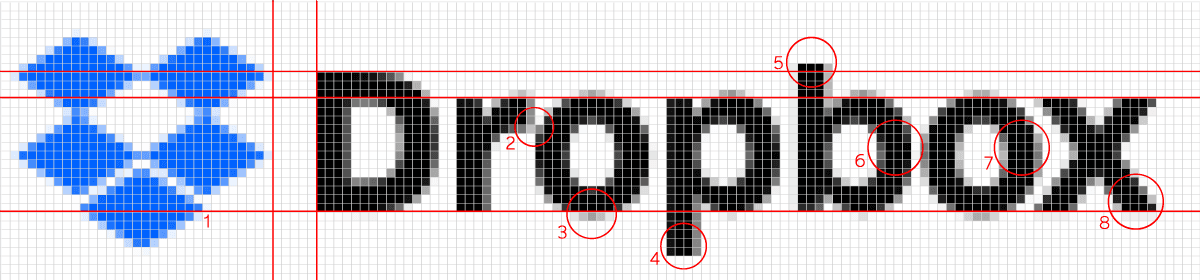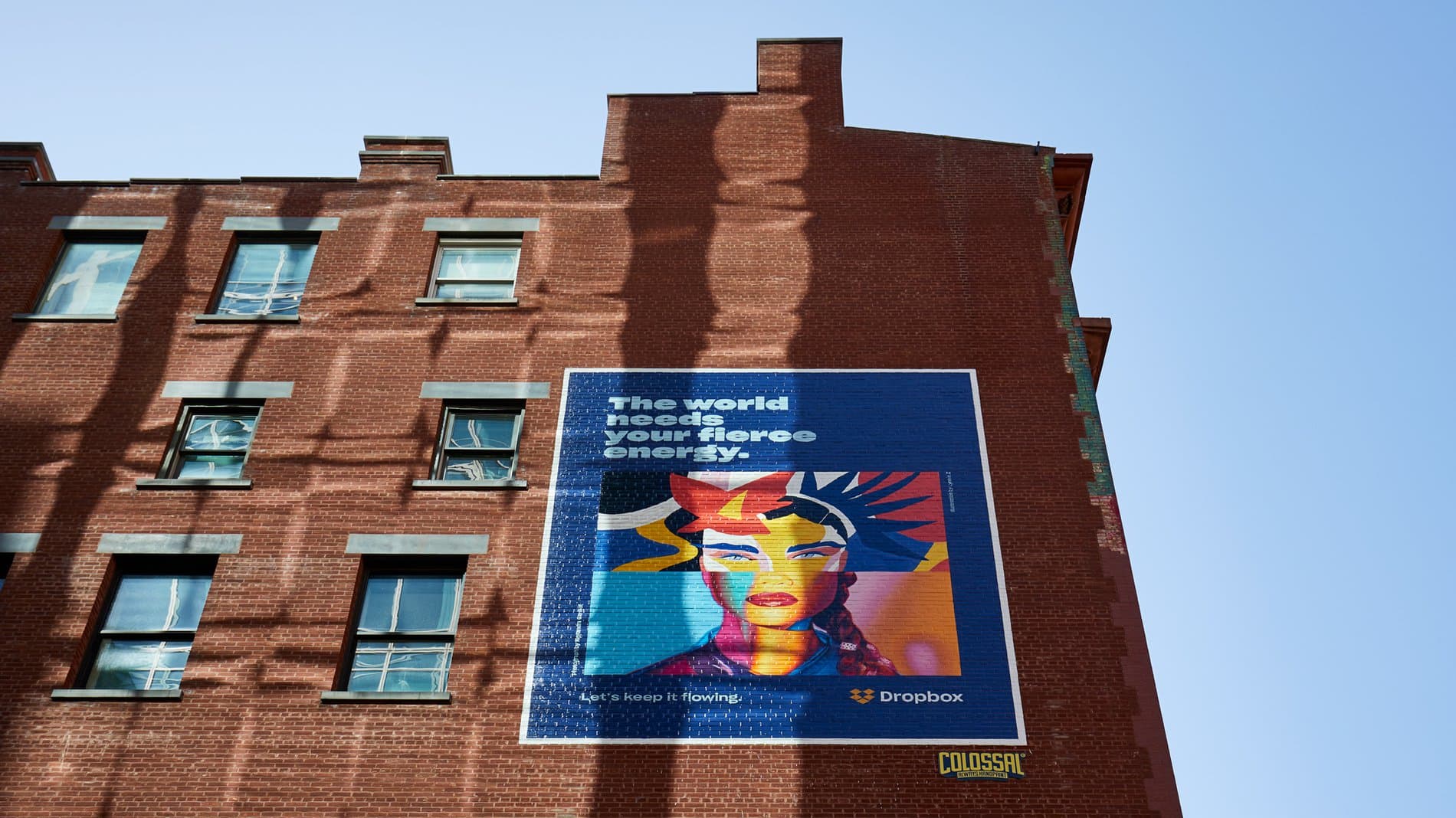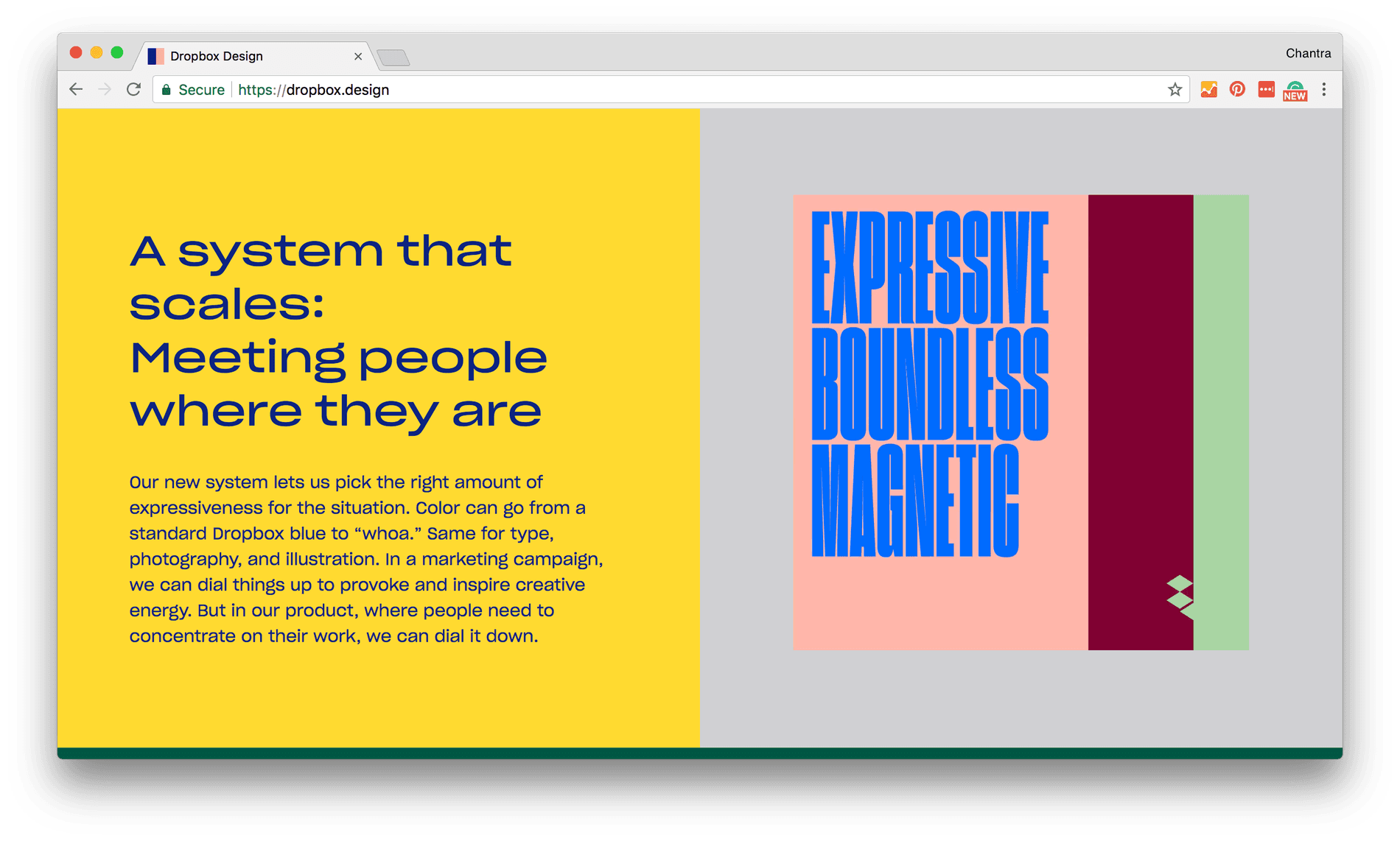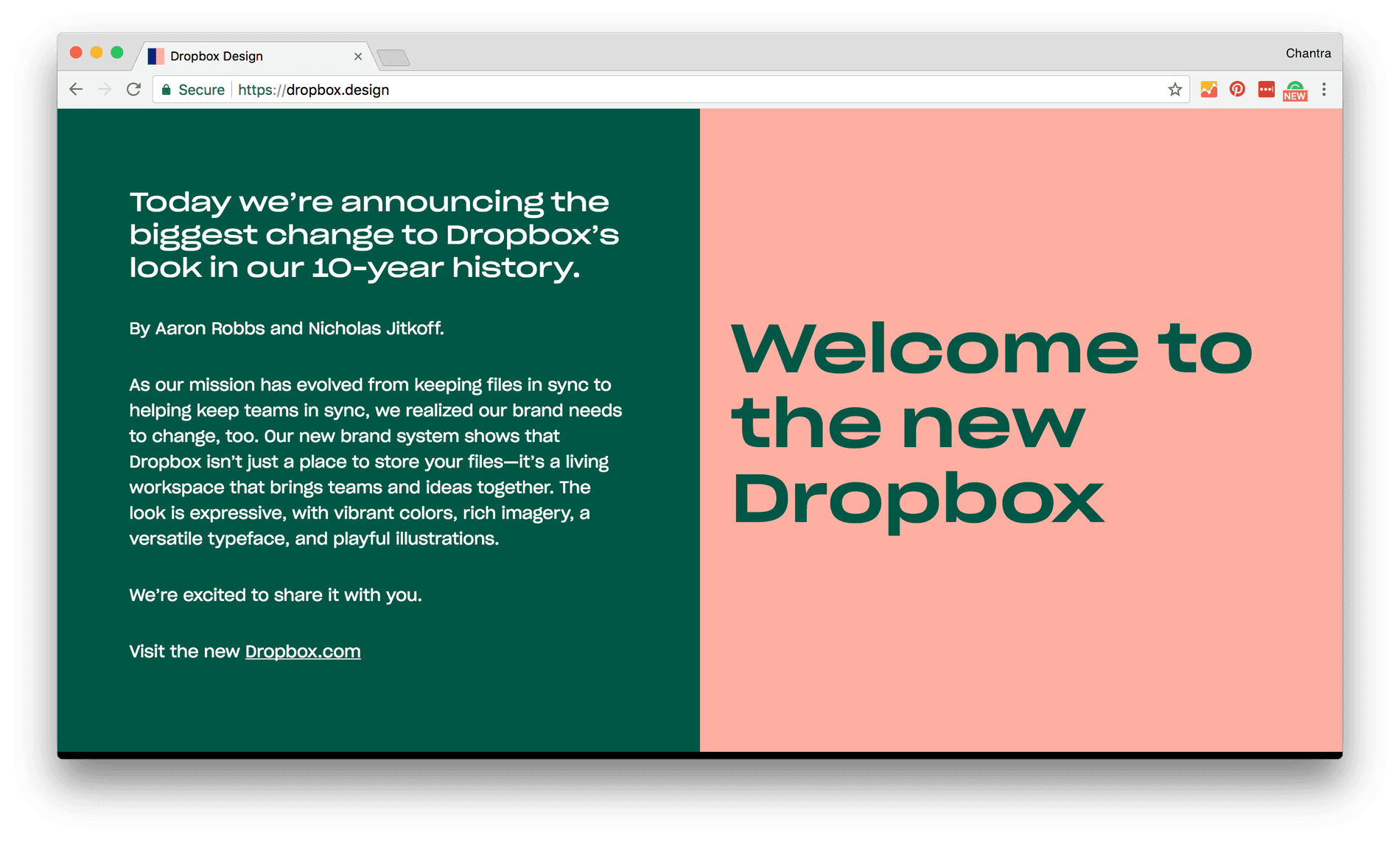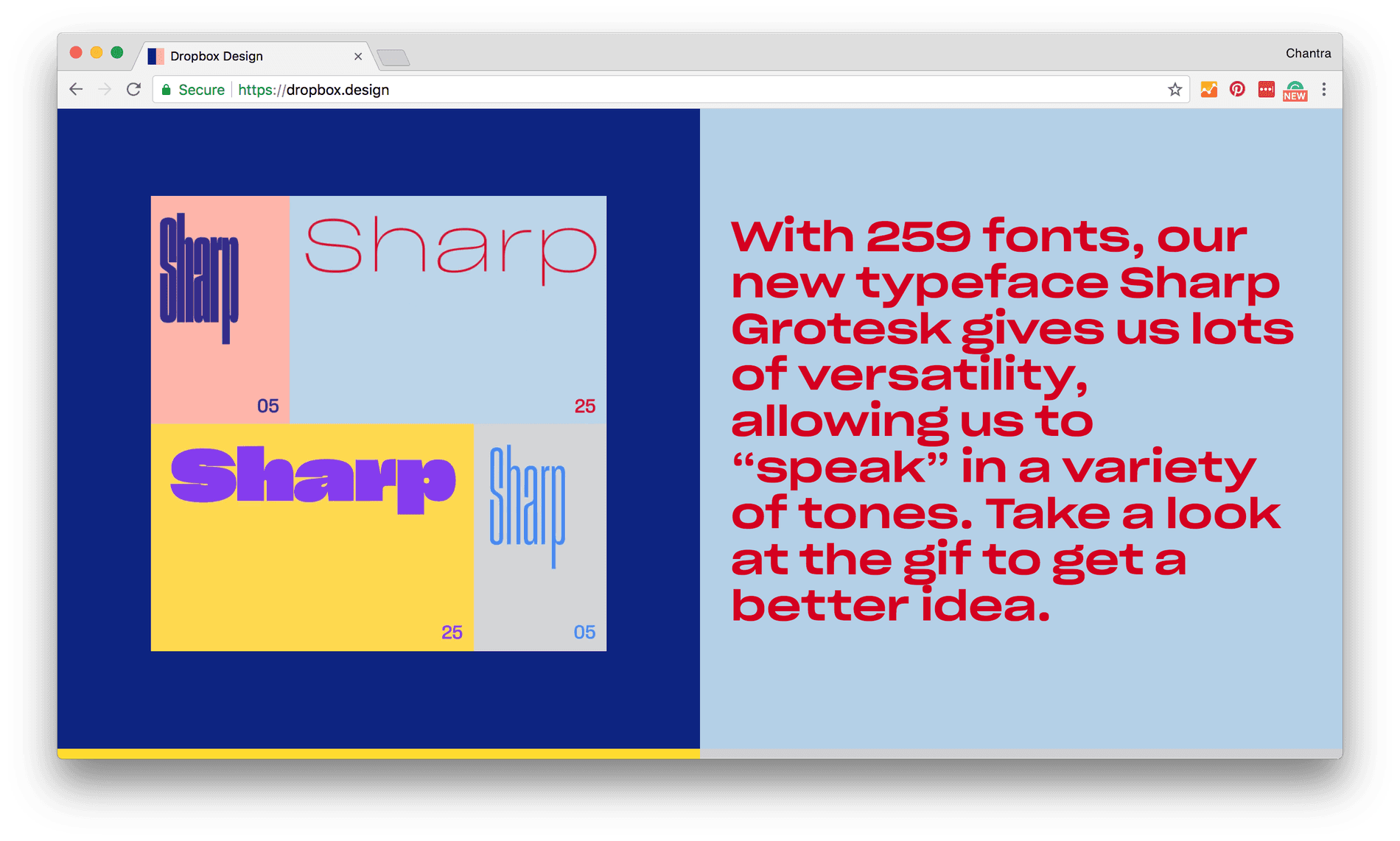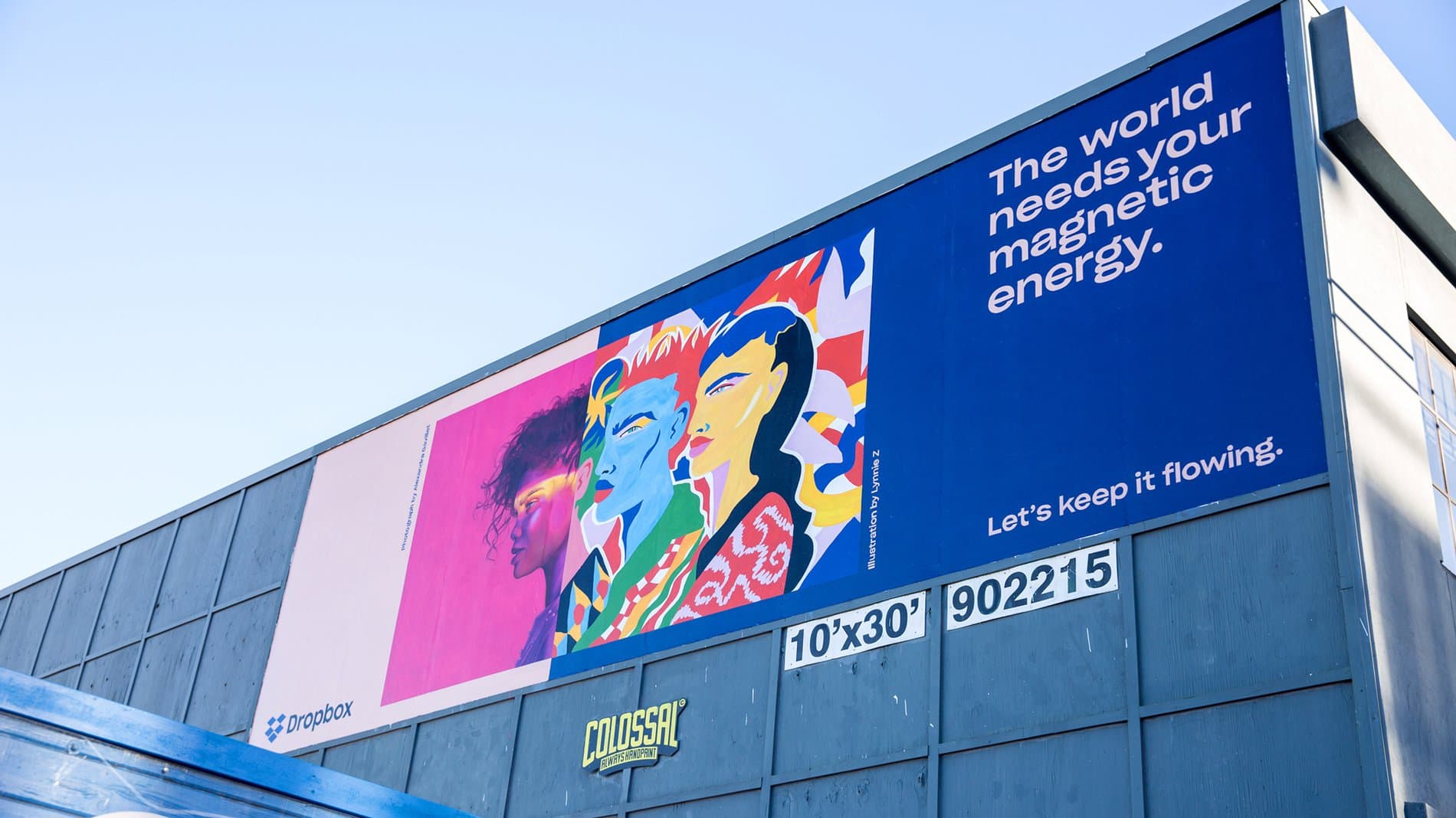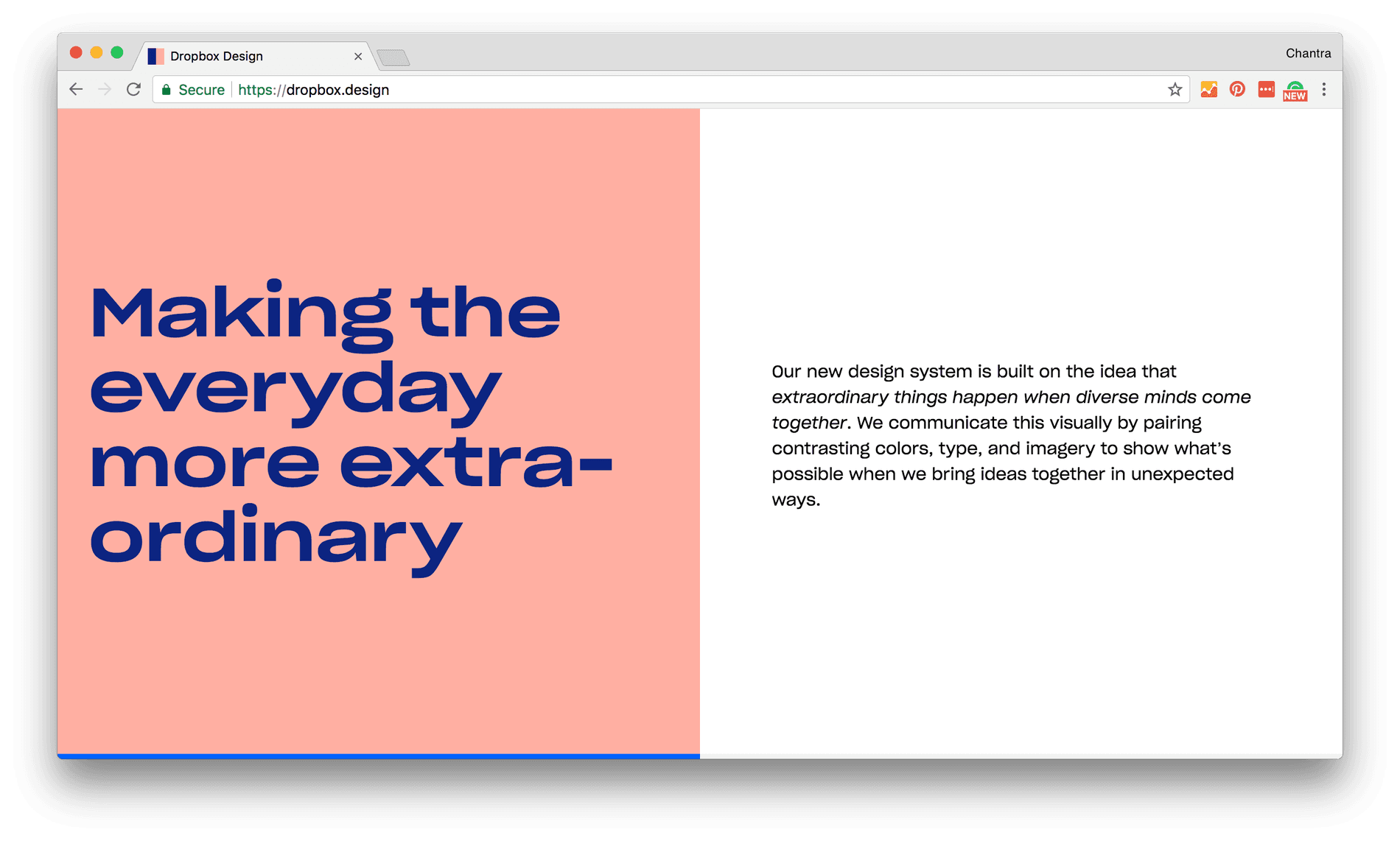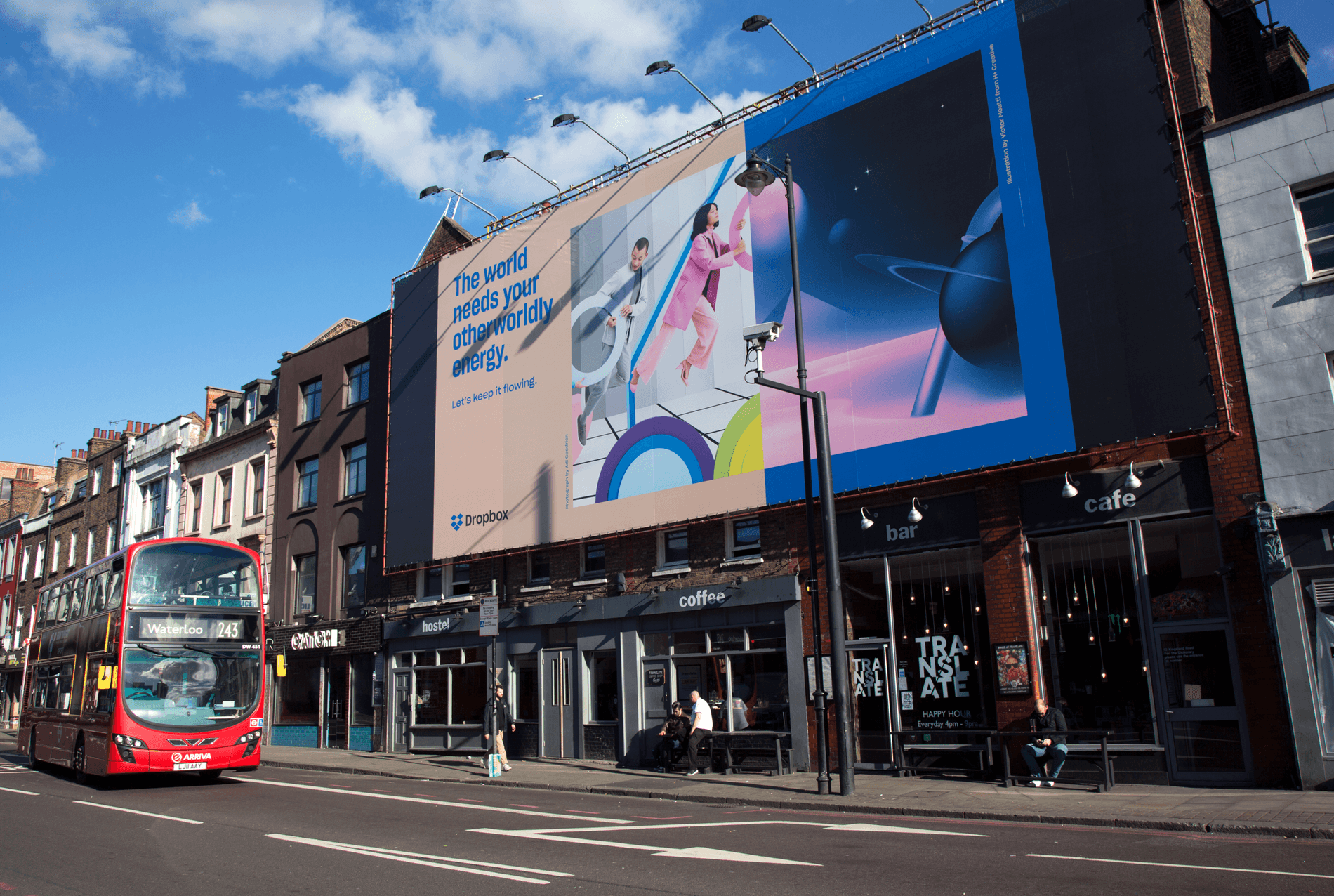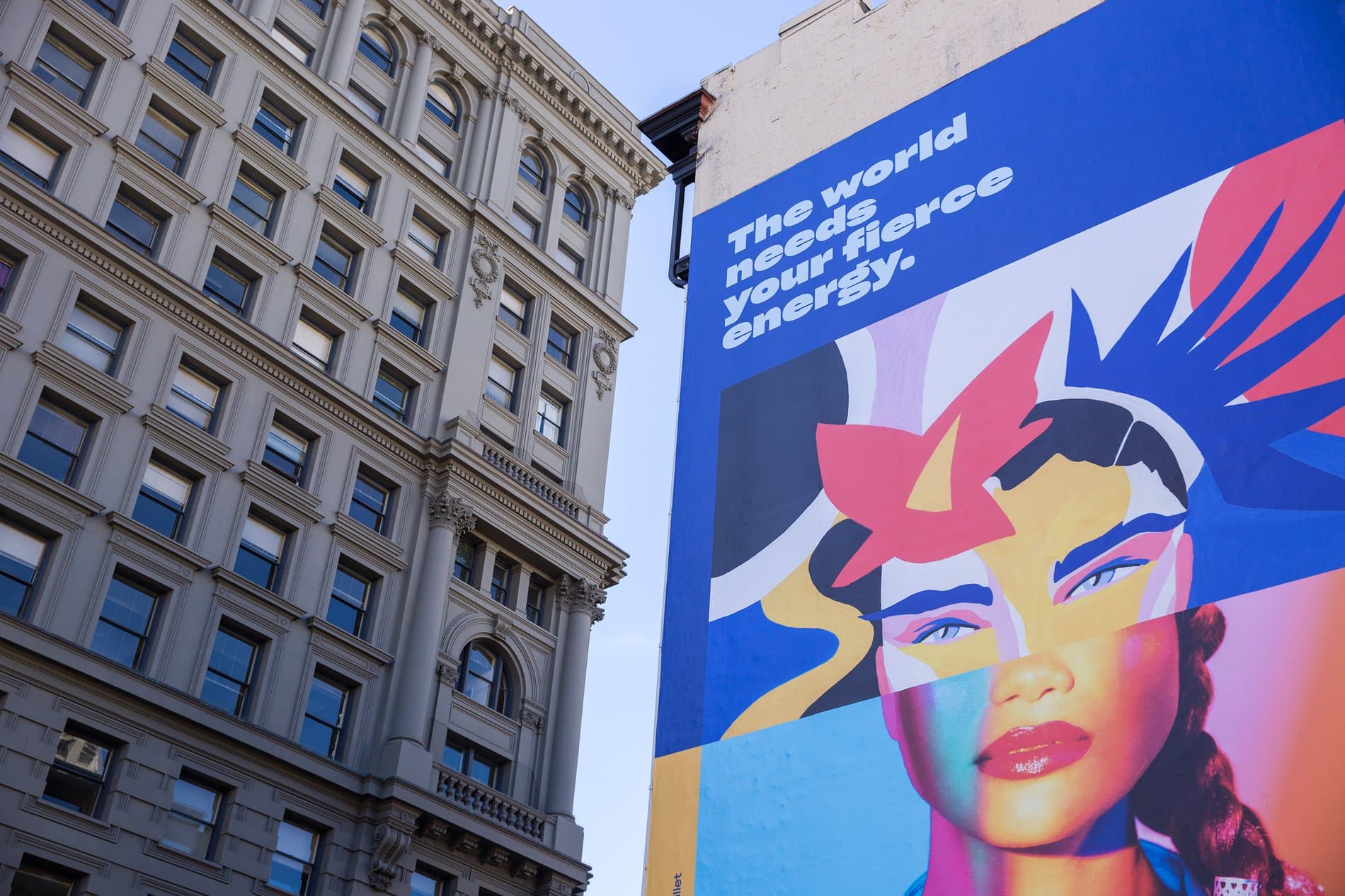
Dropbox
Dropbox and Sharp Grotesk
All 294 fonts of it.
Dropbox Brand Identity
In the Summer of 2017, Dropbox approached us to use the full family of Sharp Grotesk for their top secret rebrand. To what extent they would be using it was unclear until we saw an early design deck. Dropbox appeared to be using every weight and width of Sharp Grotesk’s robust family of 259 fonts. It was, in short, how we’d always hoped Sharp Grotesk would be used, to a degree we hadn’t anticipated. We were delighted.
A robust rebrand needs a robust font
Sharp Grotesk was integral to the Dropbox animus, because it gave them the visual language to showcase the multiplicity and diversity of their clients and the flexibility of their product. With 259 fonts, which we later designed additional italics for (see below), Sharp Grotesk allowed Dropbox to “speak in a variety of tones” to their diverse client base including, designers, professionals, scientists, creators, and more.
San Francisco Billboards. Photography by Drew Bird.
New York City Billboards. Photography by Jody Kivort.
London Shoreditch Billboard.
Logo Development
Along with their new rebrand and typographic voice, Dropbox needed a new wordmark. Under the direction of Dropbox Brand Studio, we drew a custom logotype based on Sharp Grotesk , and three additional marks for their subbrands: Dropbox Business, Dropbox Projects, and Dropbox Paper.
Original Dropbox Logo & 2015 Logo Redesign
Sharp Grotesk Semibold 20 & Sharp Grotesk Medium 20 (Top to Bottom)
The primary logotype was fastidiously optimized over weeks, based on a custom weight in between Sharp Grotesk Medium 20 and Sharp Grotesk Semibold 20 that we created to establish a perfect visual hierarchy with the subbrand marks.
Final Custom Weight Dropbox Wordmark
Once we established the proper weight for the wordmark we entered the iterative process, reworking every letter, adjusting spacing, adapting the ascenders and descenders, tailoring the bowls, and fastidiously considering the placement of every point and handle until we reached the perfect balance.
Dropbox Subbrands
A primary interest when designing the Dropbox logotype and subbrands was to optimize letter widths, stem and bowl weights, spacing, and joins to create a perfect texture. We aimed to perfect the word spacing between “Dropbox” and each subbrand in order to emphasize individual word forms while insuring that the spacing of the glyph, logomark, and subbrand had the proper hierarchical relationship. We also resolved optical size discrepancies in texture with detailed kerning adjustments, and optimized the artwork for a wide range of optical sizes, ensuring that the same vector artwork maintained its flavor and legibility at small sizes without compromising visual appeal at larger sizes.
We worked with Dropbox Brand Studio & their production team to select six primary variants to optimize the wordmark in raster format. The goal in this exercise was to retain proper texture and incorporate subpixel renderings that would improve legibility at smaller scales for optimal performance on-screen.
Rasterizing type for small sizes is a unique and interesting challenge. The grid is ever present, and all typographic form must adhere to this paradigm.
The pixels of the logomark were made to align perfectly with the vertical metrics (1), and the vertical metrics were made to align to distinct pixel rows (1) (4) (5). Although the goal in rasterization is to align as much of the artwork as possible exactly to the pixel grid while maintaining the appearance of the original, some forms will never align cleanly. The diagonals of the “x” are a good example of this, and require grey pixels to properly illustrate. At actual size (in use), these grey pixels blend with the black and take on the illusion of smooth form.
Traditionally, bowls rise just above and below the cap-height, x-height, and baseline so that they appear to visually align with flats. In typography, this method of visual compensation is called overshoot. In small rasterized type, overshoot is best executed with grey pixels (3).
Spacing letters can be very difficult when adhering the shapes to such a coarse grid. While the natural spacing of the “o,p,b” (6) allows for optimal repetition of the bowl forms and their respective spacing to the adjacent stems, the last “o” would not, as aligning it to the grid in the same way would have made the “b-o” spacing appear too loose. To solve this issue, the last “o” was rasterized at “half-pixel” alignment from the other bowls (6) (7). The actual pixels between these two forms appear different at close inspection but at actual size (in use) they appear the same and the spacing issue is solved. The “r” was tricky to space as well and required connecting grey pixels to the adjacent “o” to simulate them being distinct but tightly spaced (2).
Sharp Grotesk is Extensive